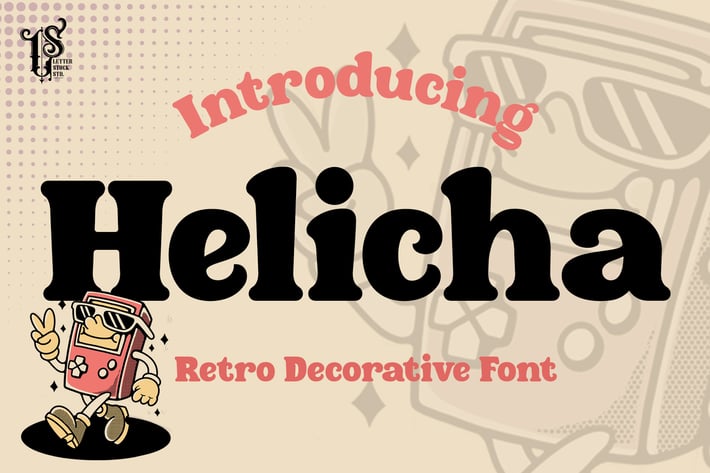
Helicha - Retro cartoon font
Helicha Font
This pair was inspired by the retro cartoon poster design that i saw on some coffee shop, It was crafted by hand specially to add natural handmade feeling in its brand identity than i make it clean with pentool.